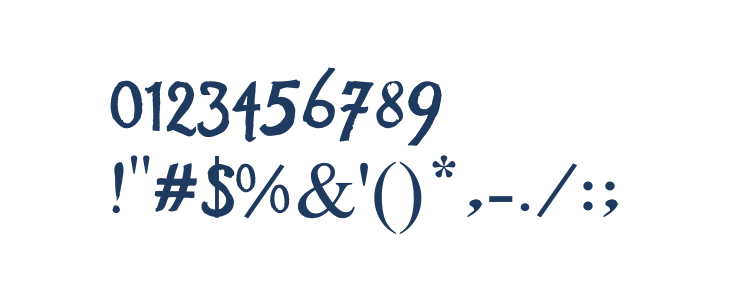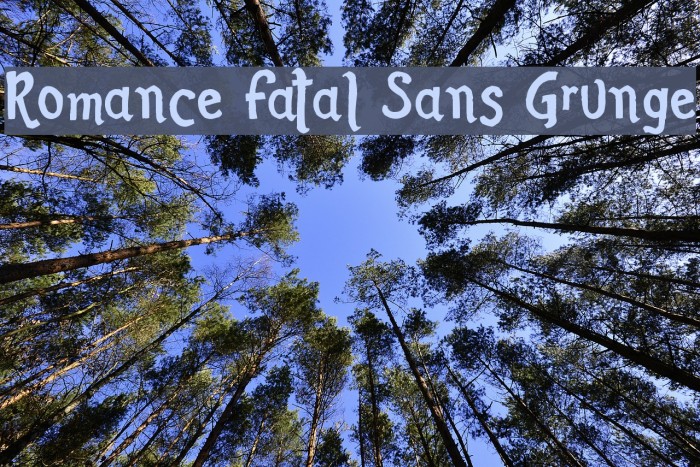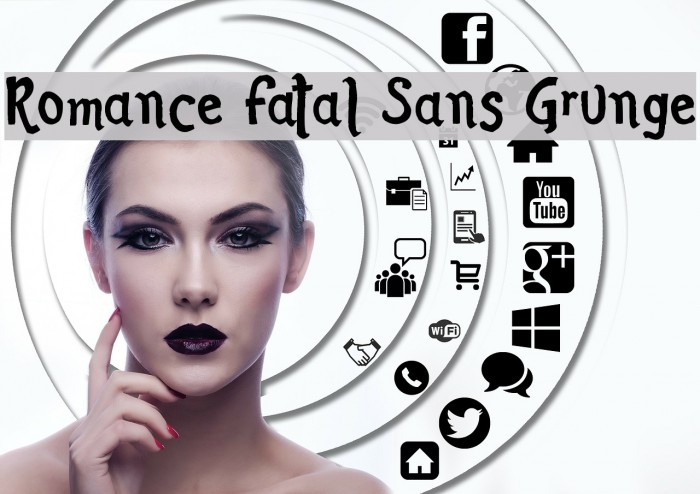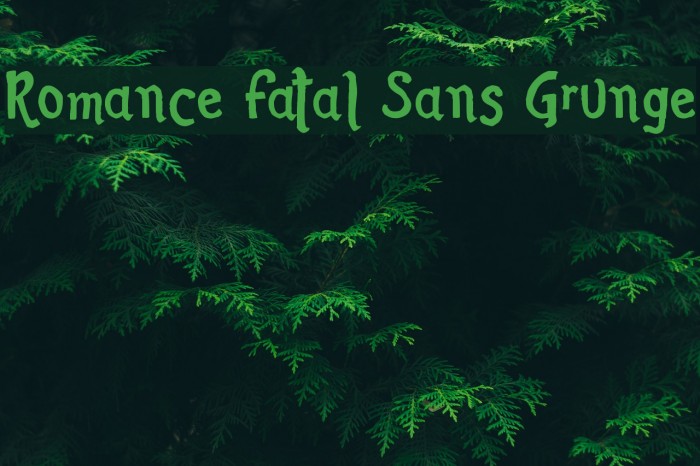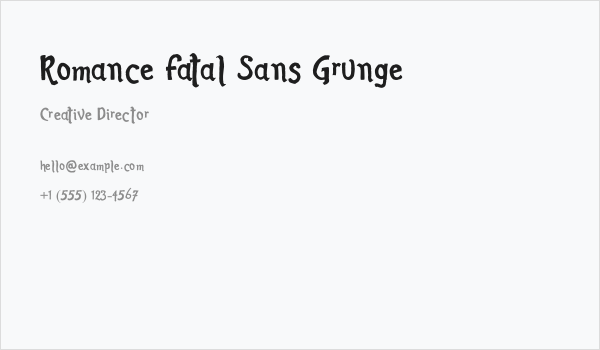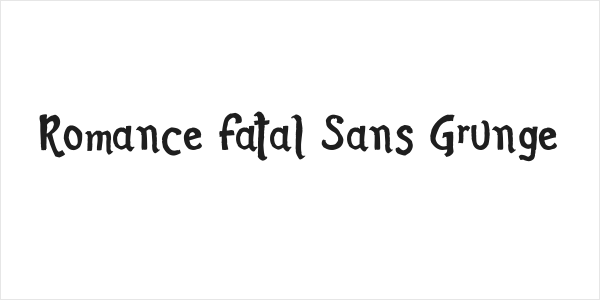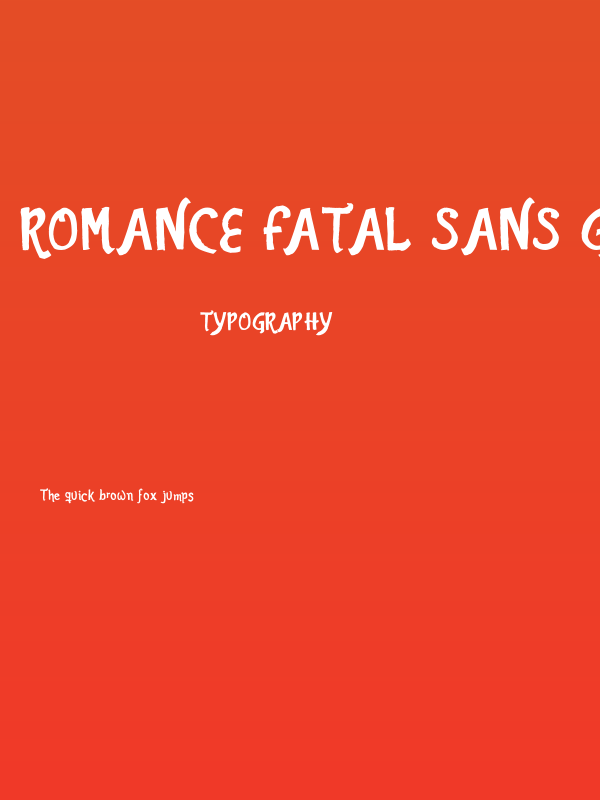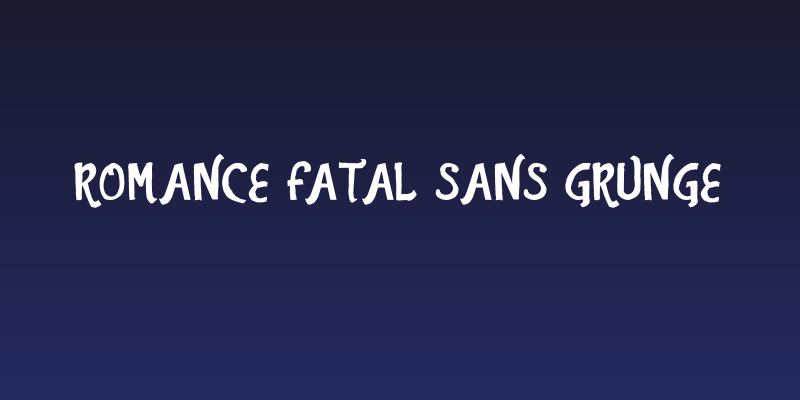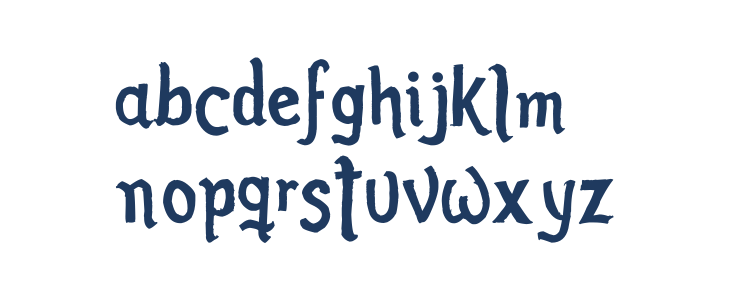
Romance Fatal Sans Grunge Font
Romance Fatal Sans Grunge Description
This font exudes a grunge aesthetic with its rough, hand-drawn appearance. The characters are bold and slightly irregular, giving them a unique, edgy look. The uppercase letters are tall and commanding, while the lowercase letters maintain a consistent style with a slightly more compact form. Numbers and special characters follow the same rugged design, ensuring a cohesive look across all text elements. The font's distinctive style makes it ideal for projects that require a bold, artistic touch.
| Overall Style | Grunge, Artistic |
| Use Case | Headlines, Posters, Artistic Designs |
| Proposed Projects | Ideal for album covers, posters, and graphic design projects that require a bold, artistic flair. |